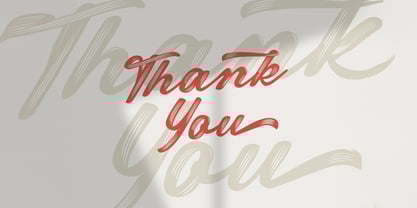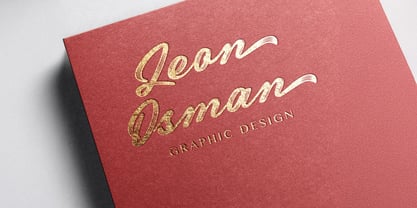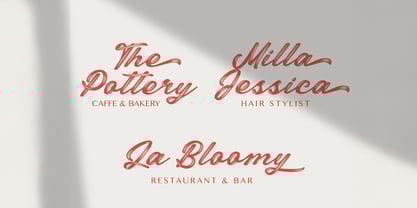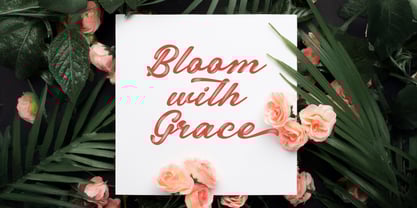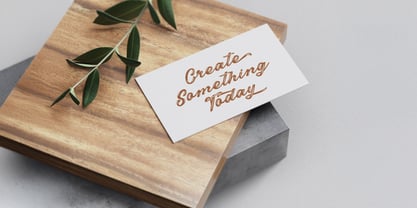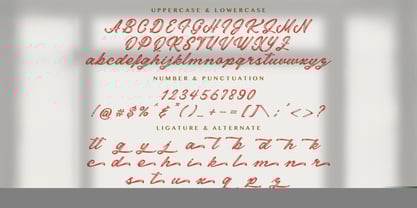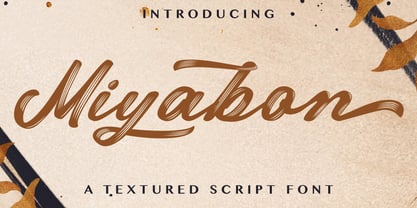
Die Schriftfamilie Miyabon wurde von Virgiawan Listanto entworfen und von Stringlabs Creative Studio veröffentlicht. Miyabon enthält 1 Stile.
Miyabon is a textured brush font bursting with energy, attitude, and handcrafted flair. With its rough edges and bold strokes, this font captures the raw beauty of brush lettering perfect for designs that demand a powerful and creative presence. Whether you're working on music posters, streetwear branding, or edgy packaging, Miyabon adds a gritty, artistic vibe that stands out with style.
Miyabon